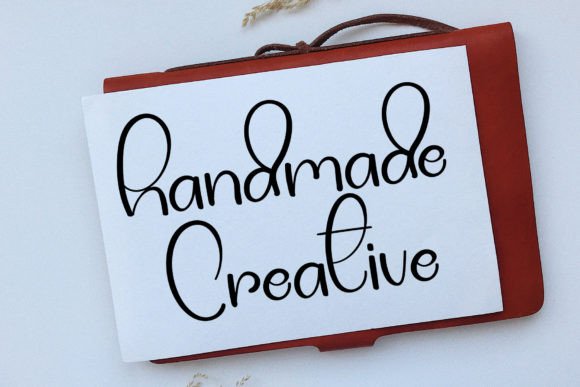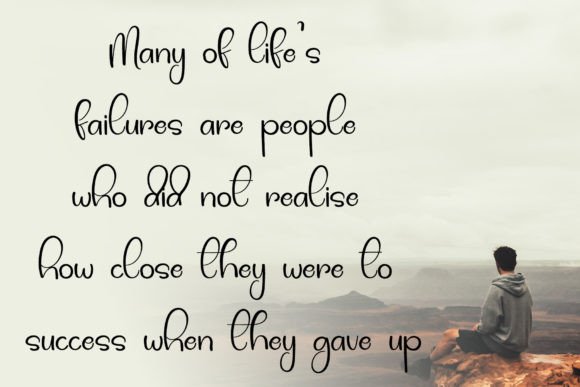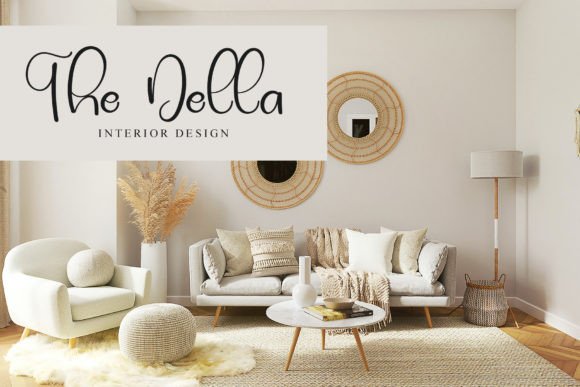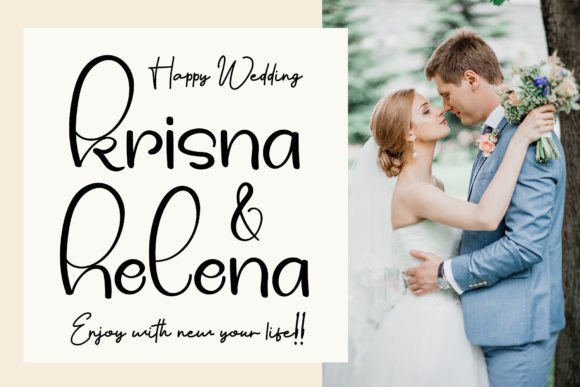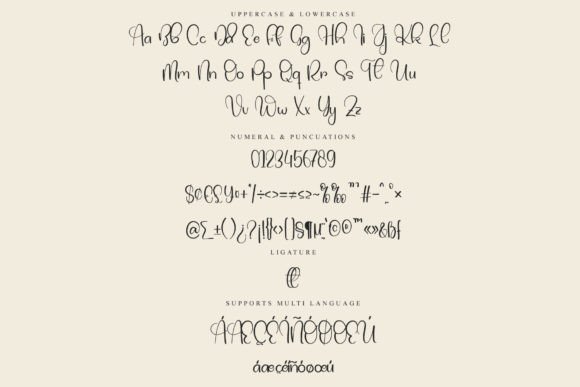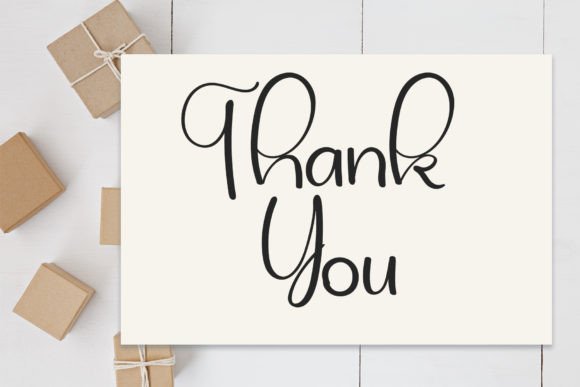
The Perfect Handshake: Elevating Your Designs with a Touch of Luxury
Have you ever been working on a design project, pouring your heart and soul into every detail, and suddenly, you’re stuck on finding the perfect font? You want something that will make your design stand out, something that will leave a lasting impression on your audience.
Enter the Handshake Font, a beautiful handwritten font that will add a touch of luxury to any design project. With its unique characters that dance along the baseline, this font is perfect for designers who want to create a truly special and memorable design.
Whether you’re working on a wedding invitation, a luxury brand logo, or a high-end marketing campaign, the Handshake Font is a valuable asset to have in your design toolkit. Its elegance and sophistication will elevate your designs to the next level, making it a must-have for any designer looking to add a touch of luxury to their work.
Handshake Font Key Features
- Unique Characteristics: The Handshake Font features a unique, handwritten style with a friendly and approachable tone, making it ideal for use in creative and informal applications.
- Glyphs and Characters: The font includes a wide range of glyphs and characters, including uppercase and lowercase letters, numbers, punctuation marks, and special characters.
Handshake Font Review
Overall, I have mixed feelings about the Handshake font. ✨ The font has a unique and friendly feel to it, which makes it perfect for casual or informal designs. It’s great for creating a welcoming atmosphere and is sure to make a good impression. I particularly like how it handles longer text, making it a great choice for blog posts or articles.
- Unique and friendly feel
- Perfect for casual or informal designs
- Welcoming atmosphere
- Great for longer text
However, there are some limitations to the Handshake font. ⚠️ It may not be the best choice for formal or professional designs, as it can come across as too casual. Additionally, the font may not be as readable in smaller sizes, which can make it difficult to use in certain contexts.
- May not be suitable for formal or professional designs
- Not as readable in smaller sizes
Overall, I would give the Handshake font 3 out of 5 stars. It’s a great choice for casual designs, but may not be the best fit for more formal projects. With a bit of careful planning and consideration, the Handshake font can be a great addition to your design toolkit.
Getting the Most Out of Handshake Font
For optimal results, use the Handshake Font in conjunction with other elegant and modern fonts. Experiment with different font sizes and styles to achieve a unique look.
The Handshake Font is ideal for creating formal invitations, business cards, and marketing materials. It’s also suitable for use in wedding stationery, event promotions, and other professional applications.